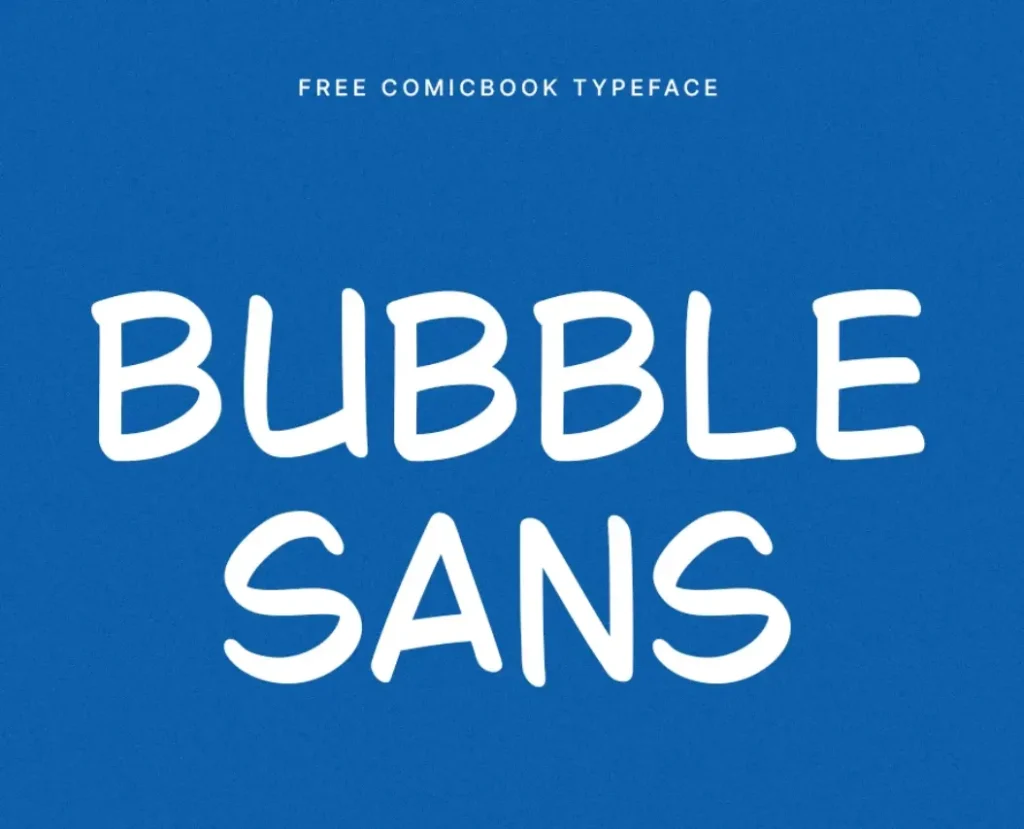
Bubble Sans is a neutral handwritten typeface created for clear comic book lettering. It draws inspiration from speech bubble lettering of the early 2000s.
You can use this font in children’s publications, where its even letterforms help new readers recognize words and follow a story.
- Includes alternative Cyrillic and Latin letterforms.
- Supports Greek, Armenian, and Old Turkic scripts.
- Contains additional decorative symbols.
- Comic Book Lettering: Apply it to speech and thought bubbles in your digital or print comics. The font’s design keeps text easy to read.
- Children’s Publications: Write friendly and accessible text for children’s storybooks. Its uniform letterforms help young readers follow along.
- Multilingual Projects: Create posters or displays for an international audience. The broad script support covers Latin, Cyrillic, Greek, and more.
- Headline and Poster Design: Build eye-catching headlines for advertisements that require a handwritten, approachable feel.